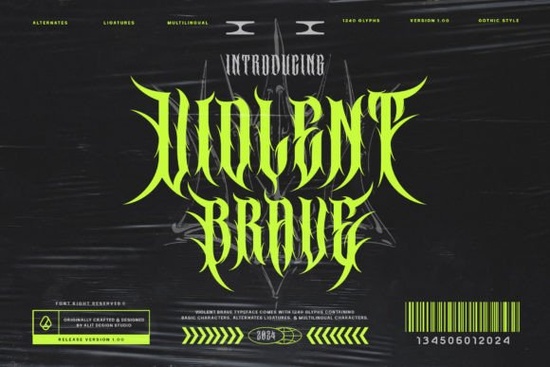
If you need a typeface that commands attention without relying on extra graphics, the Violent Brave Font delivers a heavy, metal-inspired look that works straight out of the box. Built around a brutalist aesthetic, it uses sharp edges, thick spines, and tightly controlled spacing to create text that feels loud and intentional. Designers, print-on-demand sellers, and small business owners often pick this style when they want headlines, merch, or posters to read with raw energy.
What makes this typeface stand out?
The letterforms are deliberately aggressive, but they stay readable at display sizes. Instead of relying on decorative swirls or vintage distress, the font leans into clean, geometric brutality. You get strong vertical stems, angular cuts, and a consistent weight that holds up well on both screen and print. If you usually pair bold headlines with minimalist layouts, this style gives you a focal point without cluttering the composition. It also fits nicely alongside simpler sans-serif body text, so your message stays clear while the heading does the heavy lifting.
Where does it work best for creative projects?
This font shines in projects that need an unapologetic presence. Think concert posters, album artwork, streetwear graphics, podcast covers, and limited-run merchandise. Print-on-demand sellers often use heavy display type for short phrases, brand names, or event titles because it prints cleanly on cotton, polyester, and paper. Crafters making vinyl decals or laser-cut signs will appreciate how the solid shapes cut without fragile serifs or thin hairlines. If you run a small creative shop, you can use it for sale banners, packaging stickers, or social media thumbnails where you only have a second to grab attention.
How do the extra glyphs and language support help?
Beyond the standard alphabet, the package includes 1,240 glyphs, which covers ligatures, stylistic alternates, and a broad multilingual set. Ligatures automatically join specific letter pairs, smoothing out tight spots and giving your headlines a more polished flow. Alternates let you swap out characters to avoid repetition, which is especially useful when you are designing logos or repeating brand names. The PUA Unicode mapping means you can access these extras in most design software without workarounds. If you sell to international customers or create multilingual packaging, the extended character set reduces the chance of missing letters or broken text blocks.
What should you check before adding it to your workflow?
Heavy display fonts perform best when you give them room to breathe. Keep line lengths short, increase tracking slightly if you stack words, and avoid using it for paragraphs or small mobile text. Test your final artwork at actual print size to make sure the sharp corners do not fill in with ink or vinyl bleed. When you want to explore similar heavy or blackletter styles for contrast, you can browse options like dark gothic and industrial lettering to see how different weights interact on a layout. For quick access to the official listing and current licensing details, you can view Violent Brave Font directly on the marketplace.
- Use the font for headlines, logos, or short phrases under six words.
- Pair it with a clean sans-serif or light serif for body copy to maintain readability.
- Export a test print or mockup at 100% scale to verify edge sharpness and spacing.